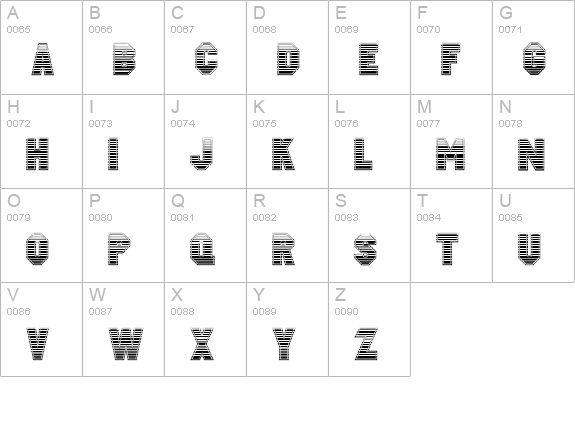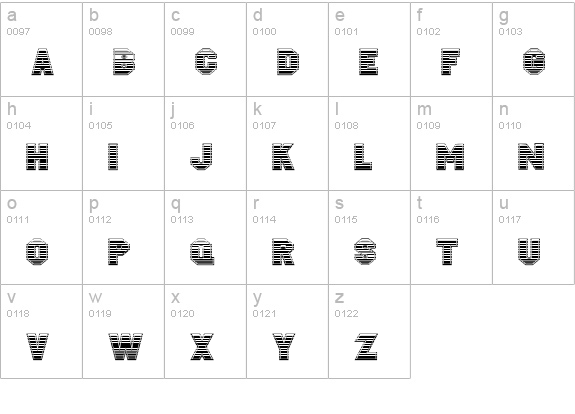
JacobiStriped Font Details
Introducing JacobiStriped font, a stunning typeface that effortlessly combines elegance with modernity. This font is a true masterpiece, carefully crafted to cater to all your design needs. JacobiStriped font features a unique and eye-catching striped pattern that adds a touch of sophistication to any project. Its clean and crisp lines make it perfect for both headings and body text, ensuring readability without compromising on style. This font is a perfect choice for a wide range of design projects, such as branding, logo design, packaging, invitations, and so much more. Its versatility knows no bounds, allowing you to explore endless creative possibilities. But what sets JacobiStriped font apart is that it is not just visually appealing, it is also freely available to download at FontsMarket.com. Yes, you read that right! This font comes with the added bonus of being completely free, making it accessible to designers of all levels. So why wait? Download JacobiStriped font today and elevate your designs to new heights. Embrace the elegance, embrace the modernity, and let this font be the ultimate tool in your creative arsenal.